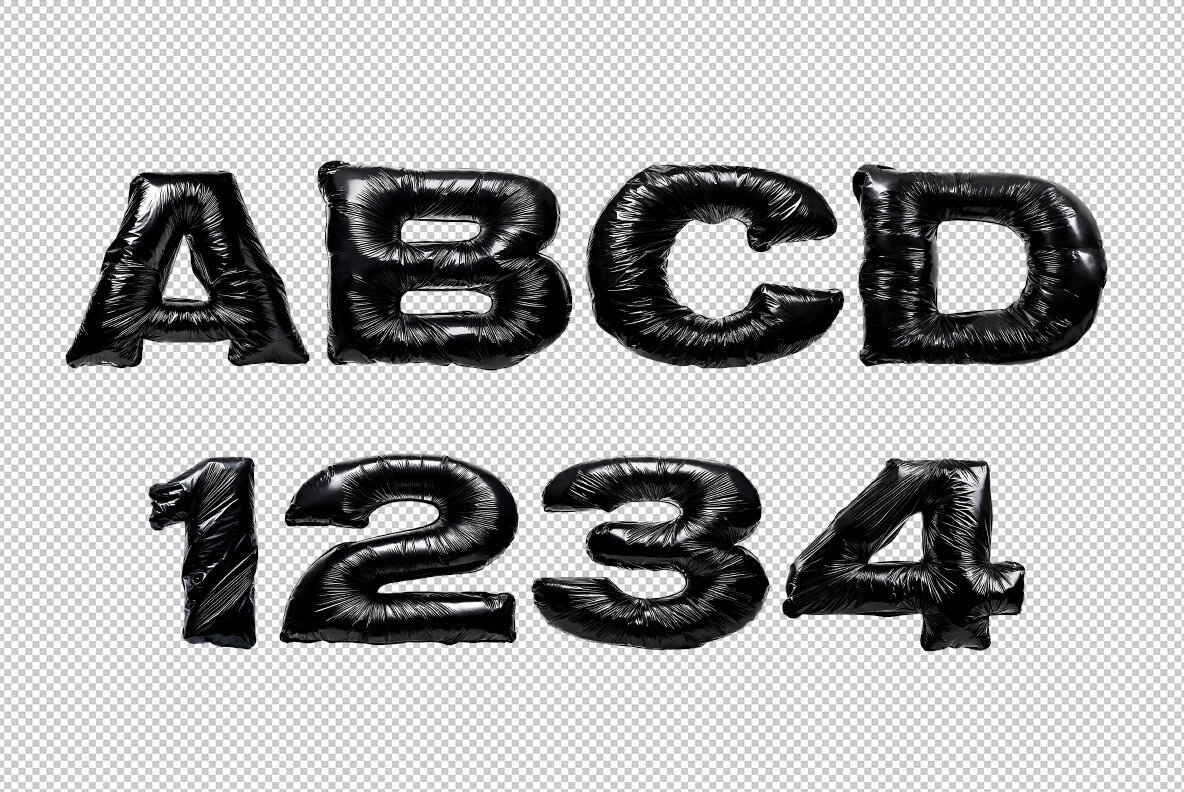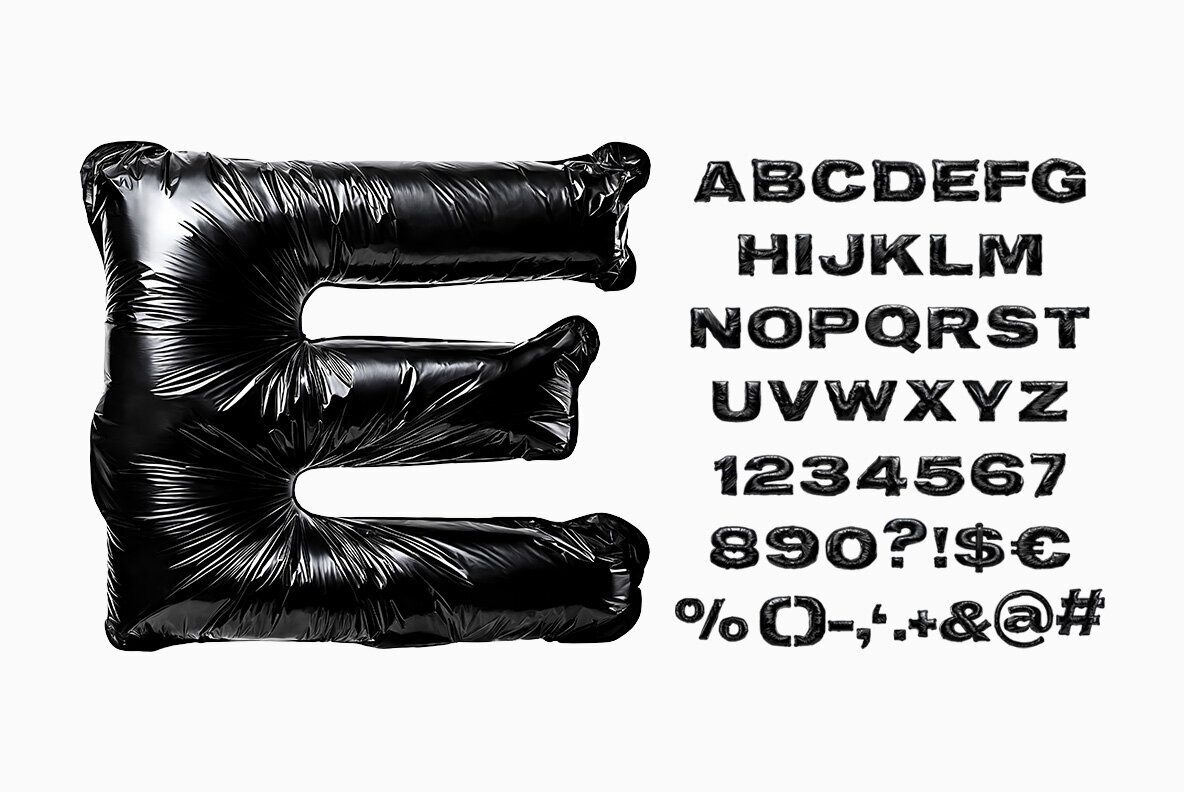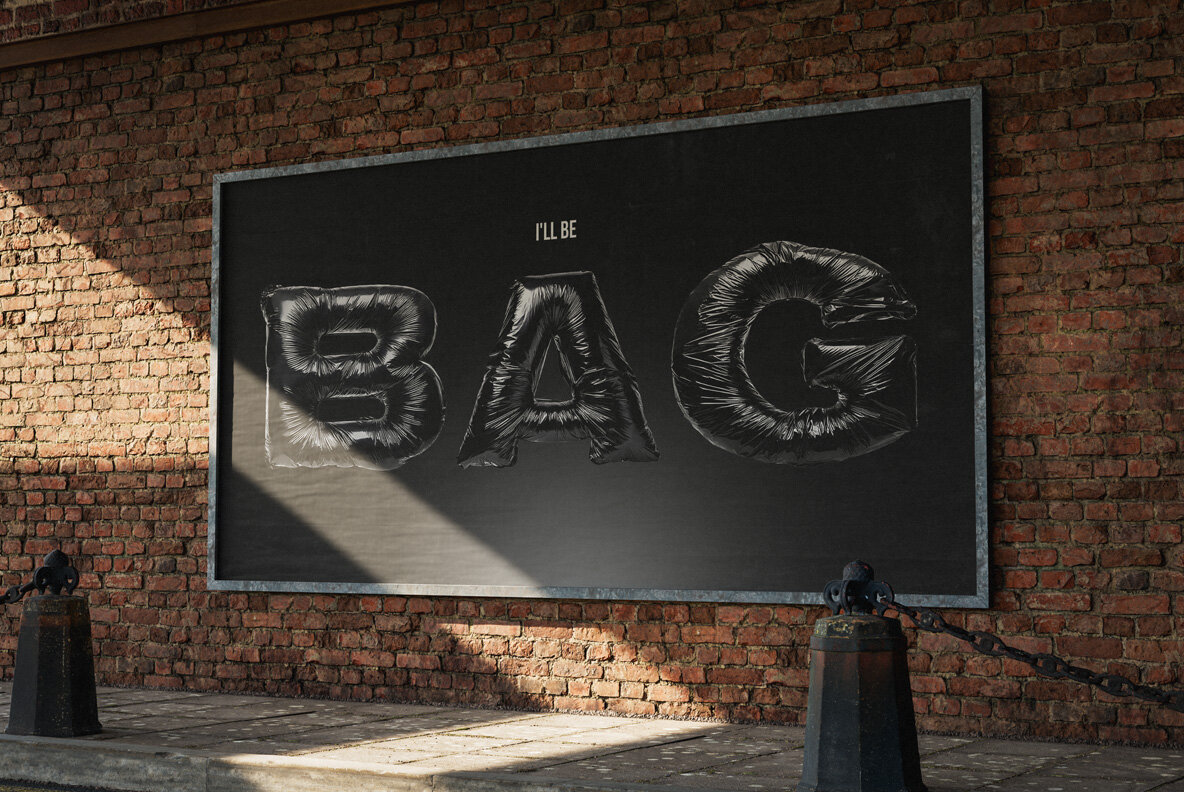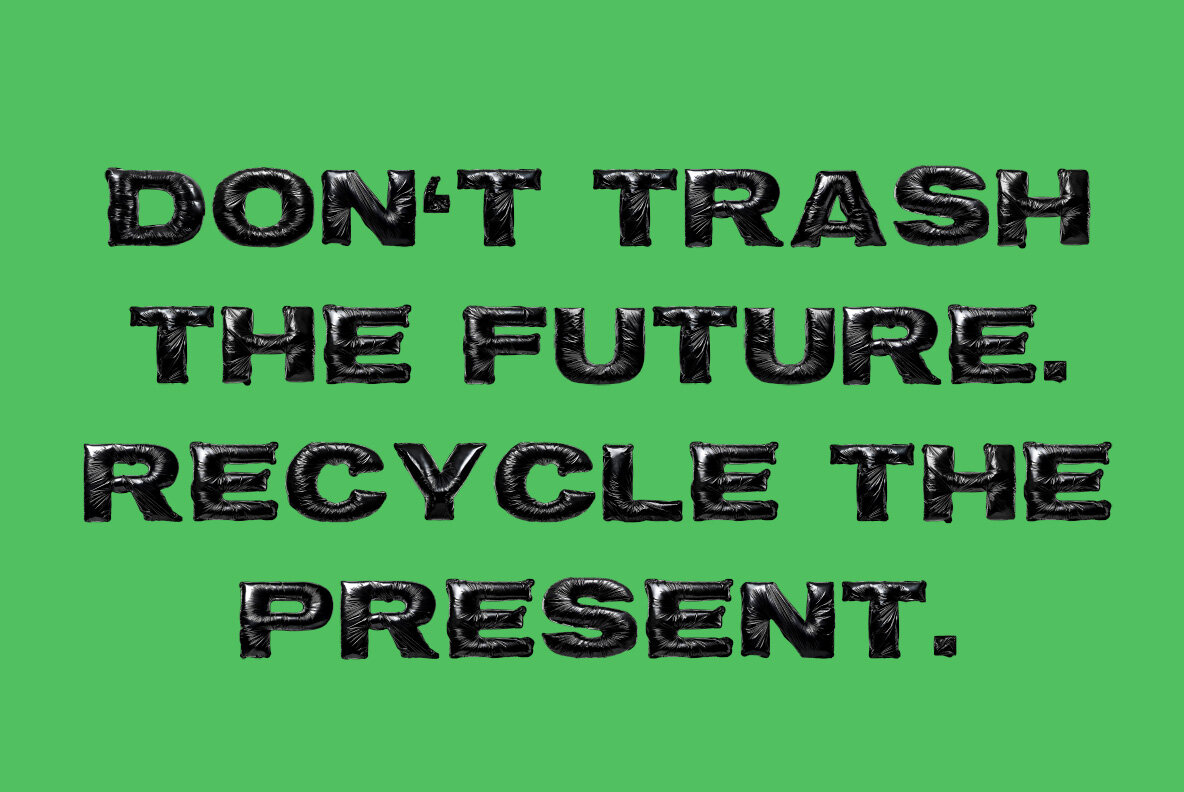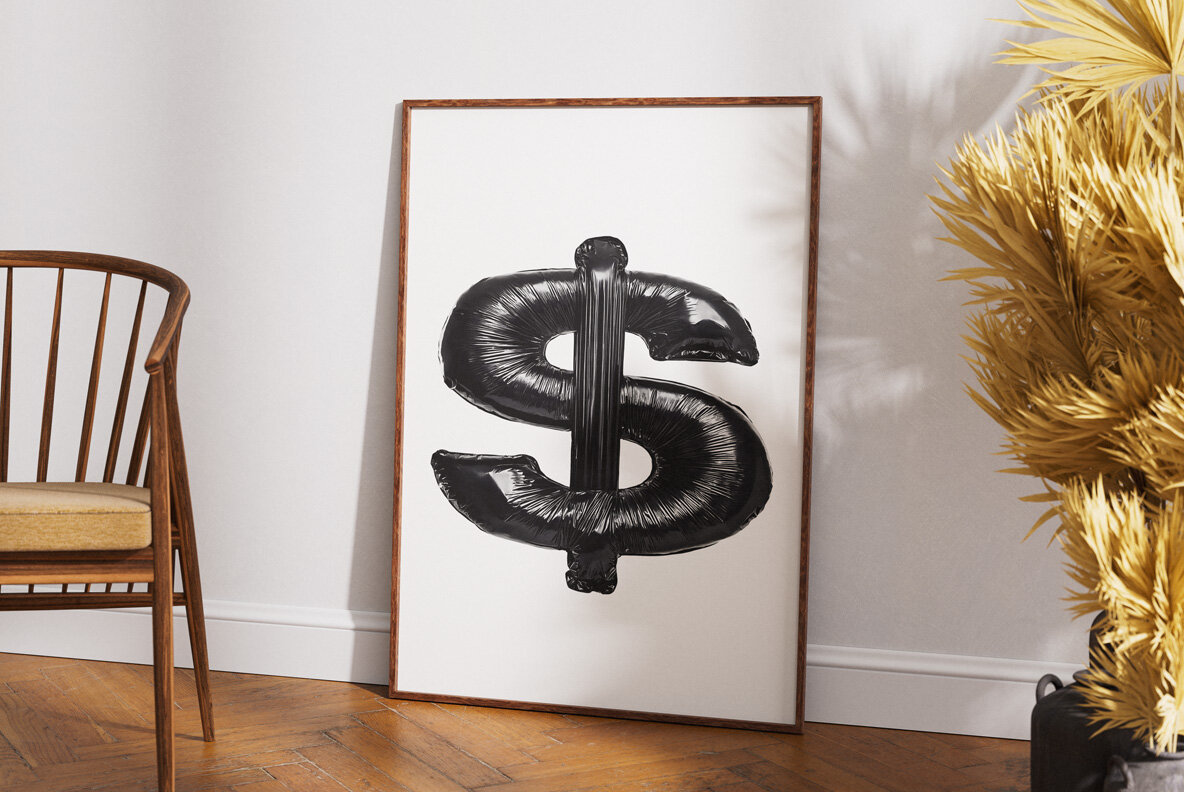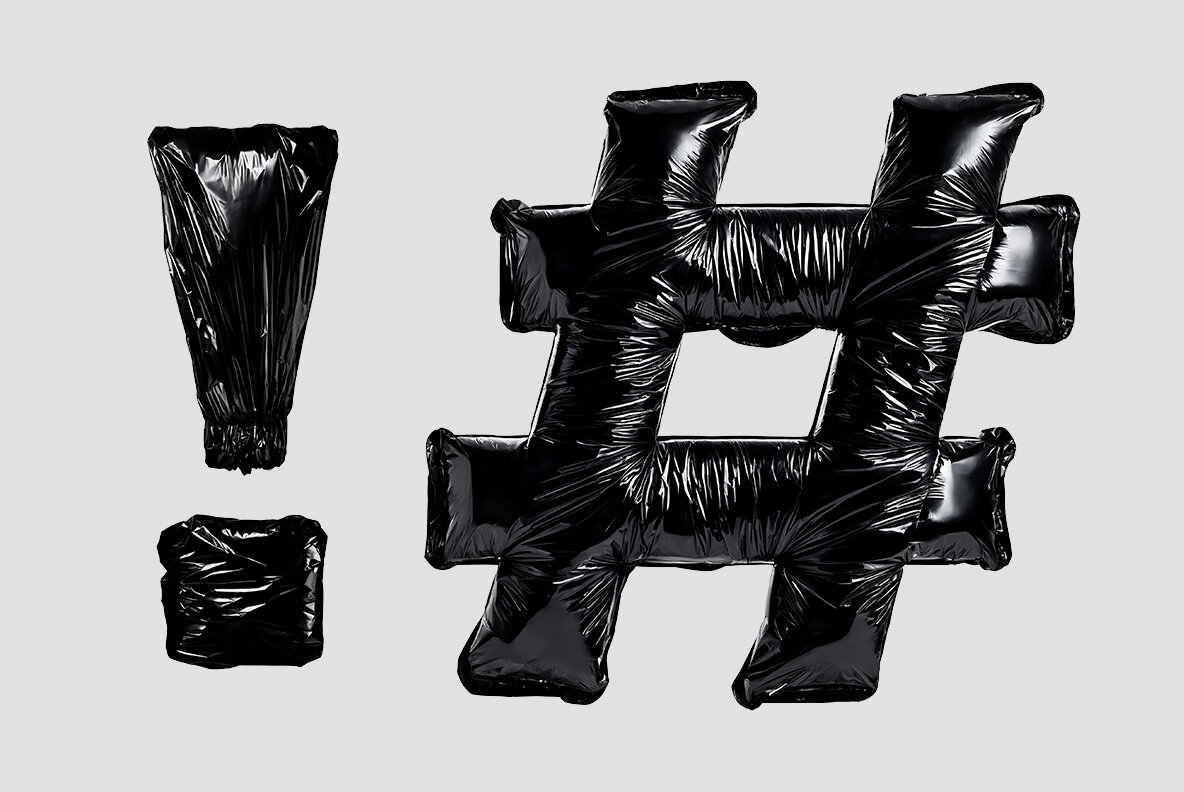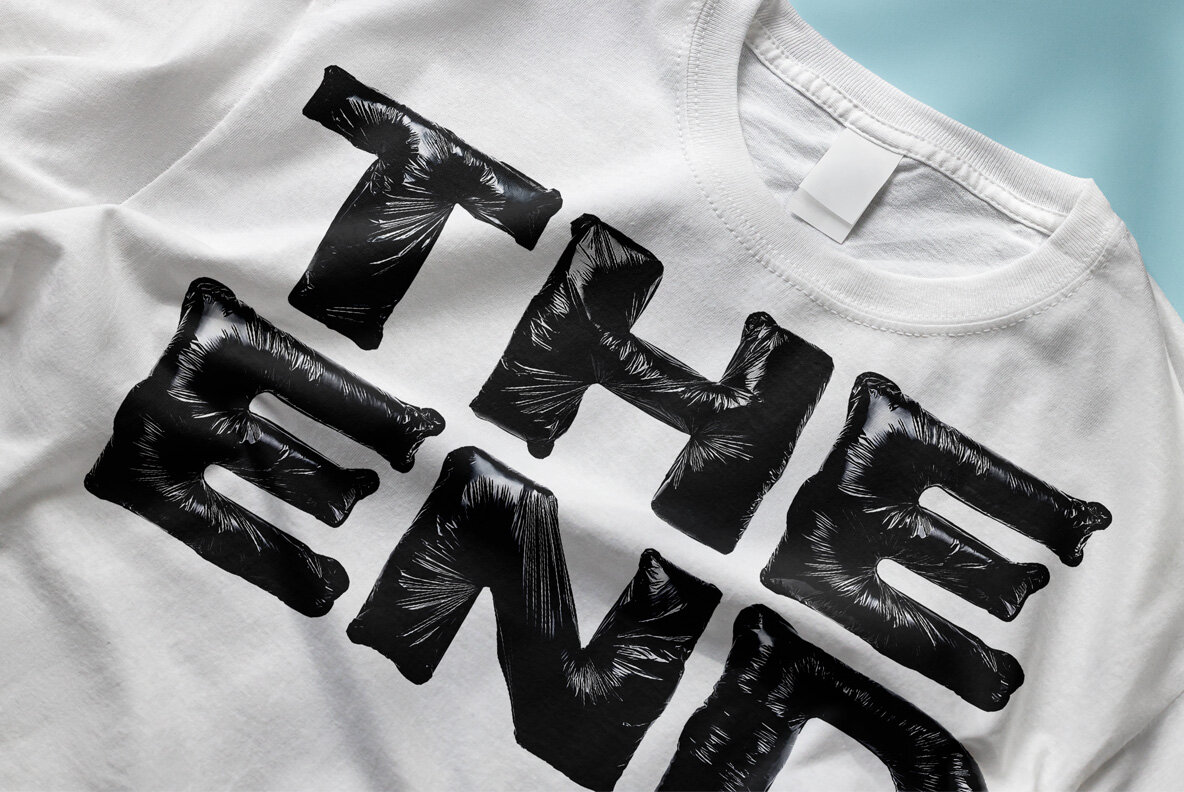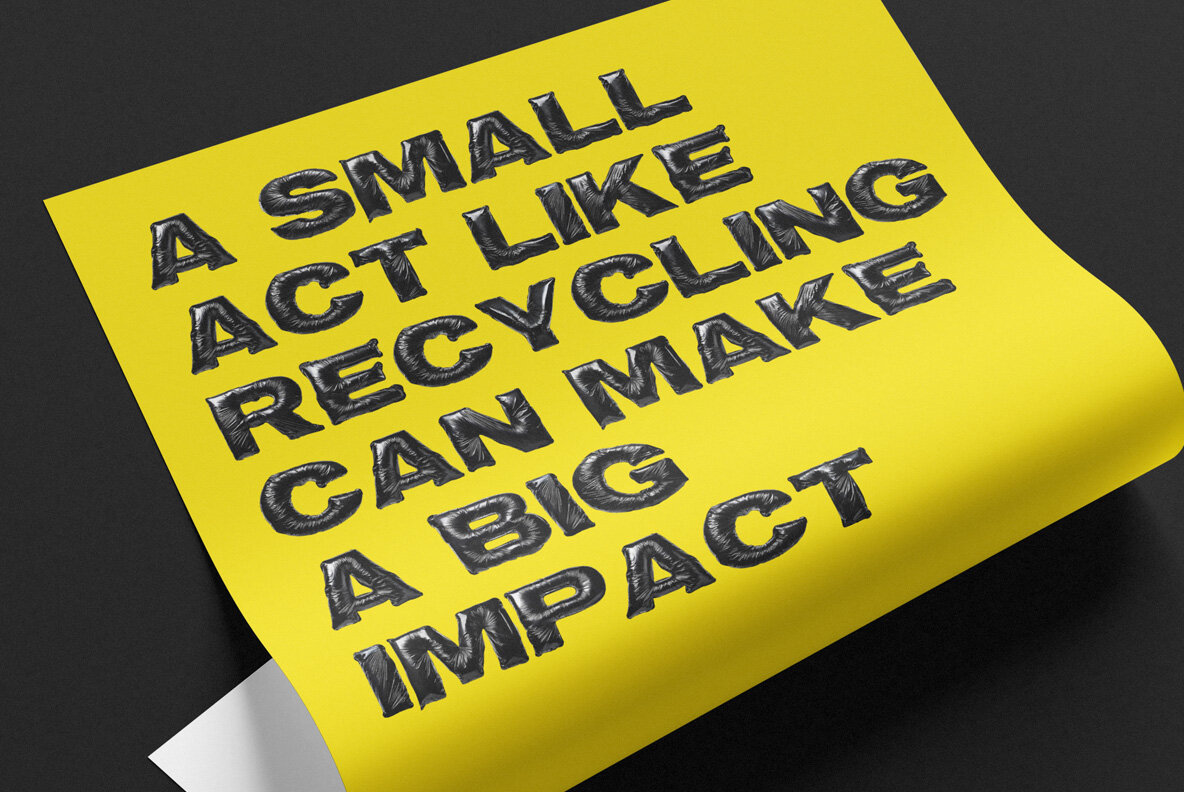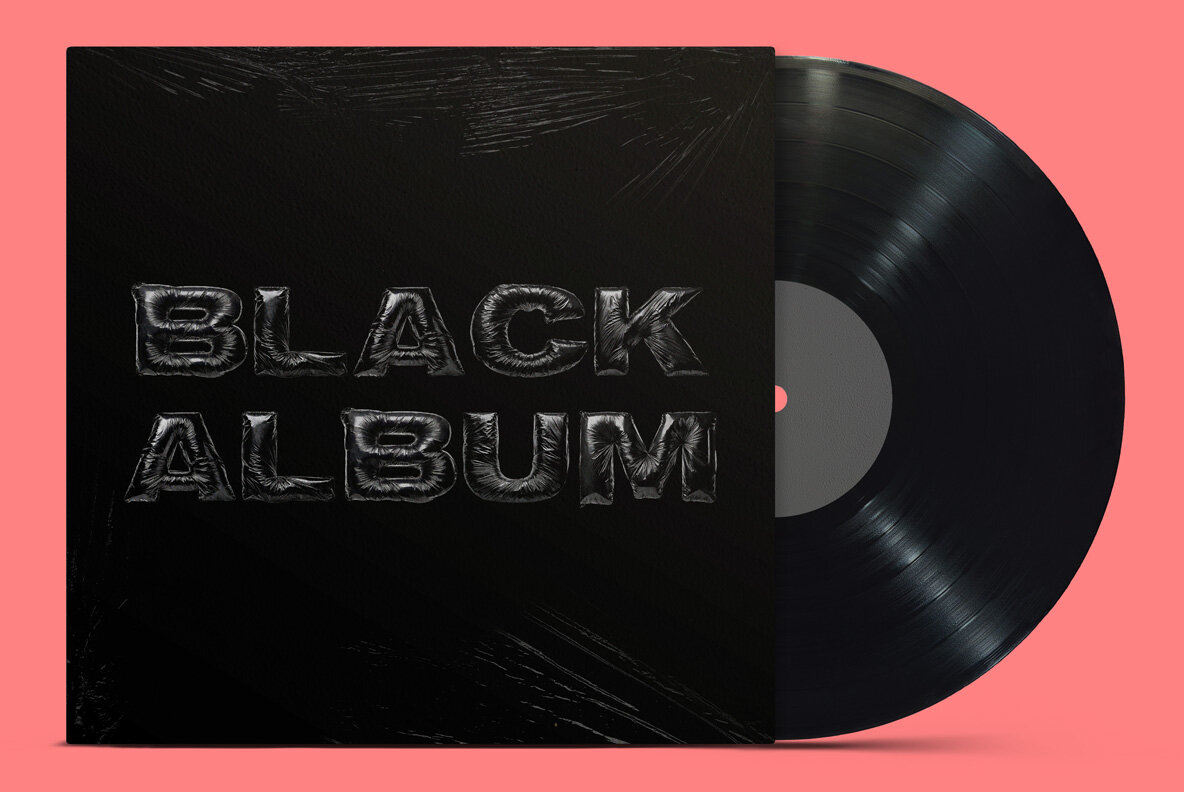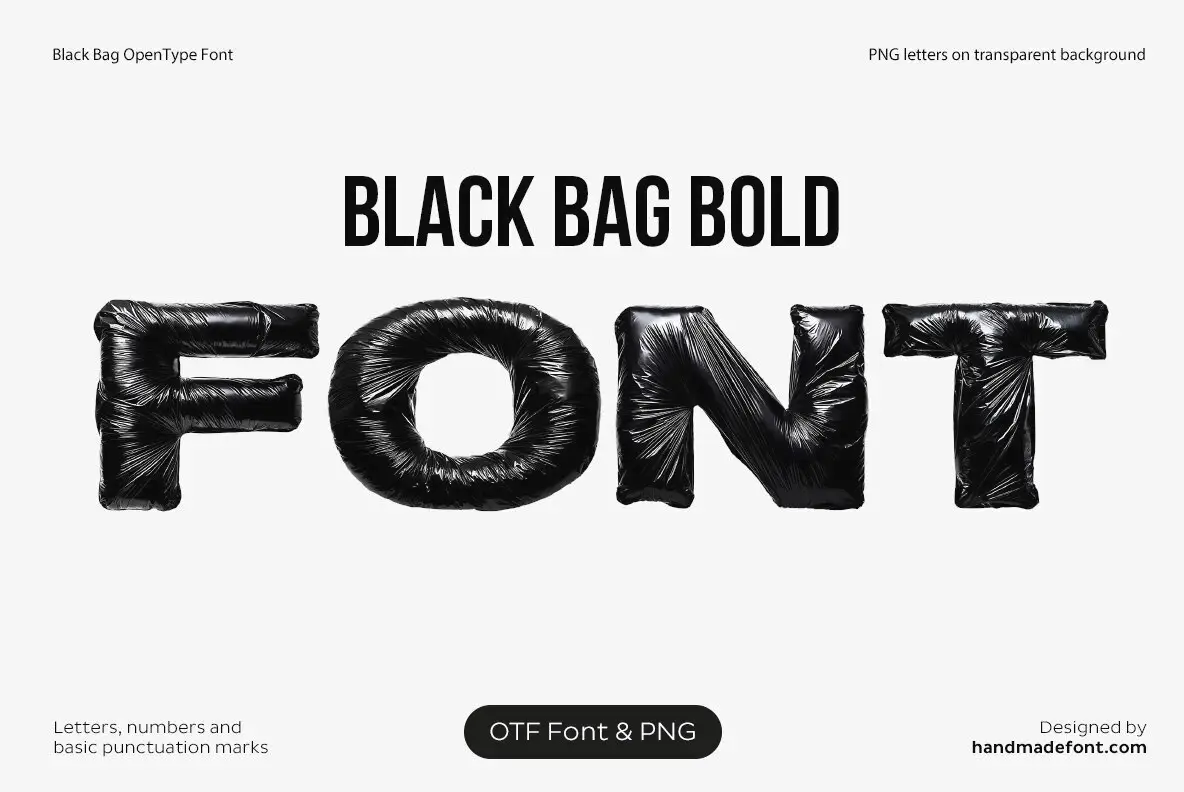
Black Bag Bold SVG offers a unique twist on typography with each letter crafted from black plastic garbage bags. This font presents a gritty, textured aesthetic that is as striking as it is unconventional, making it ideal for projects that demand an edgy, urban vibe. It captures the essence of recycling and trash, perfect for streetwear designs, eco-themed campaigns, or bold branding initiatives. The Black Bag Bold font transforms trash into a typographic treasure, infusing creativity and modern style into your designs.